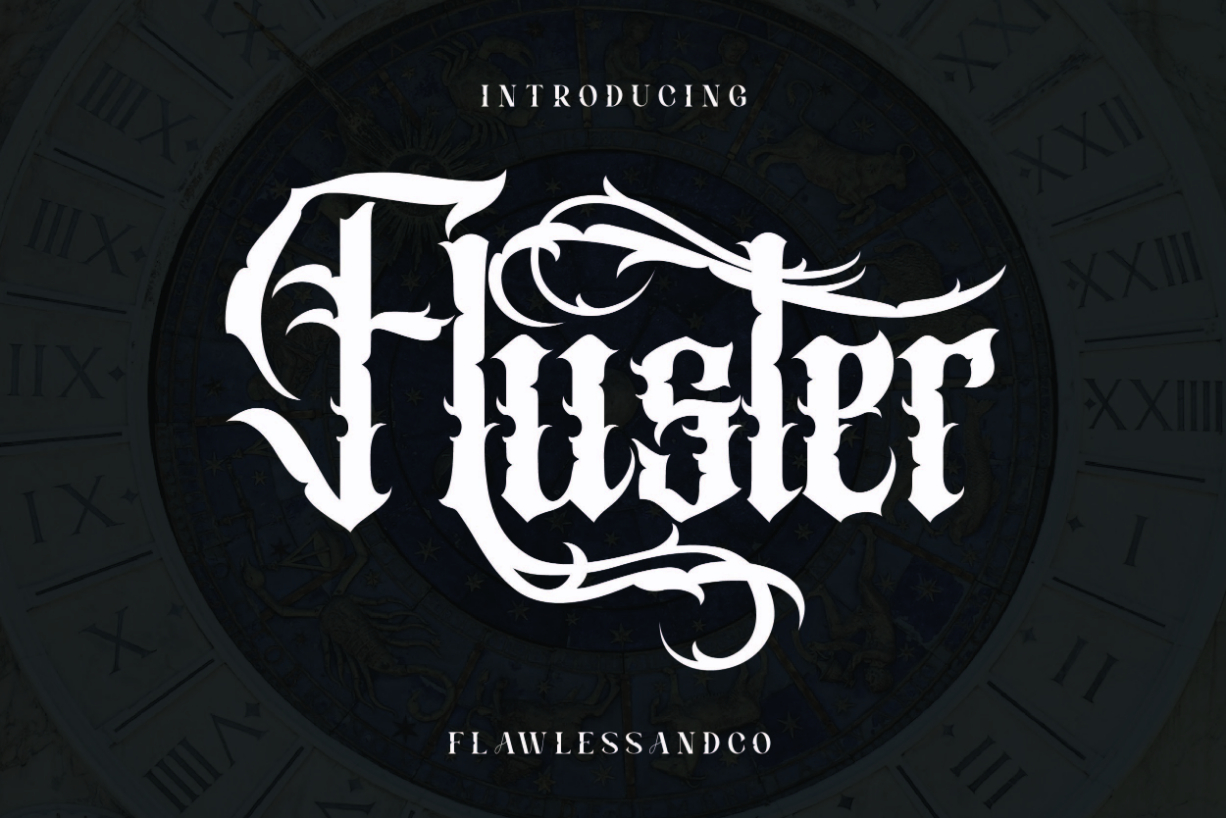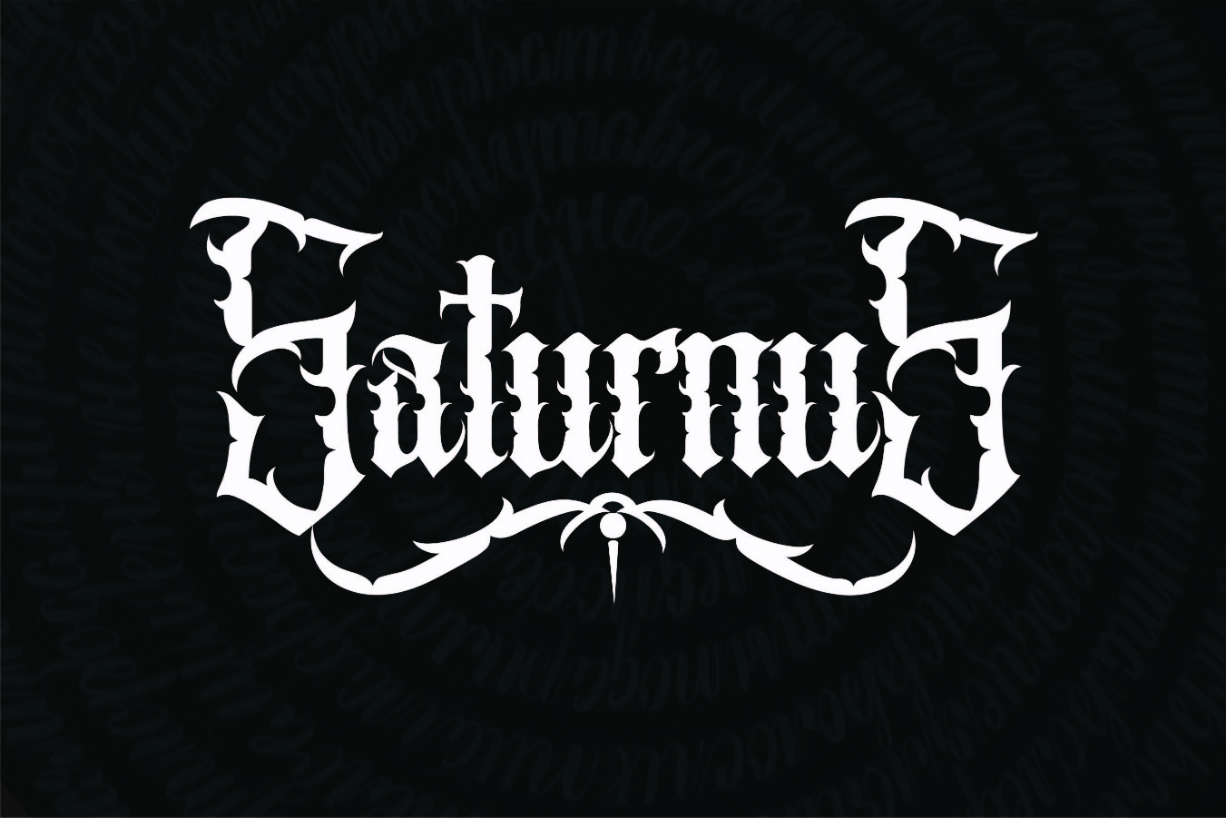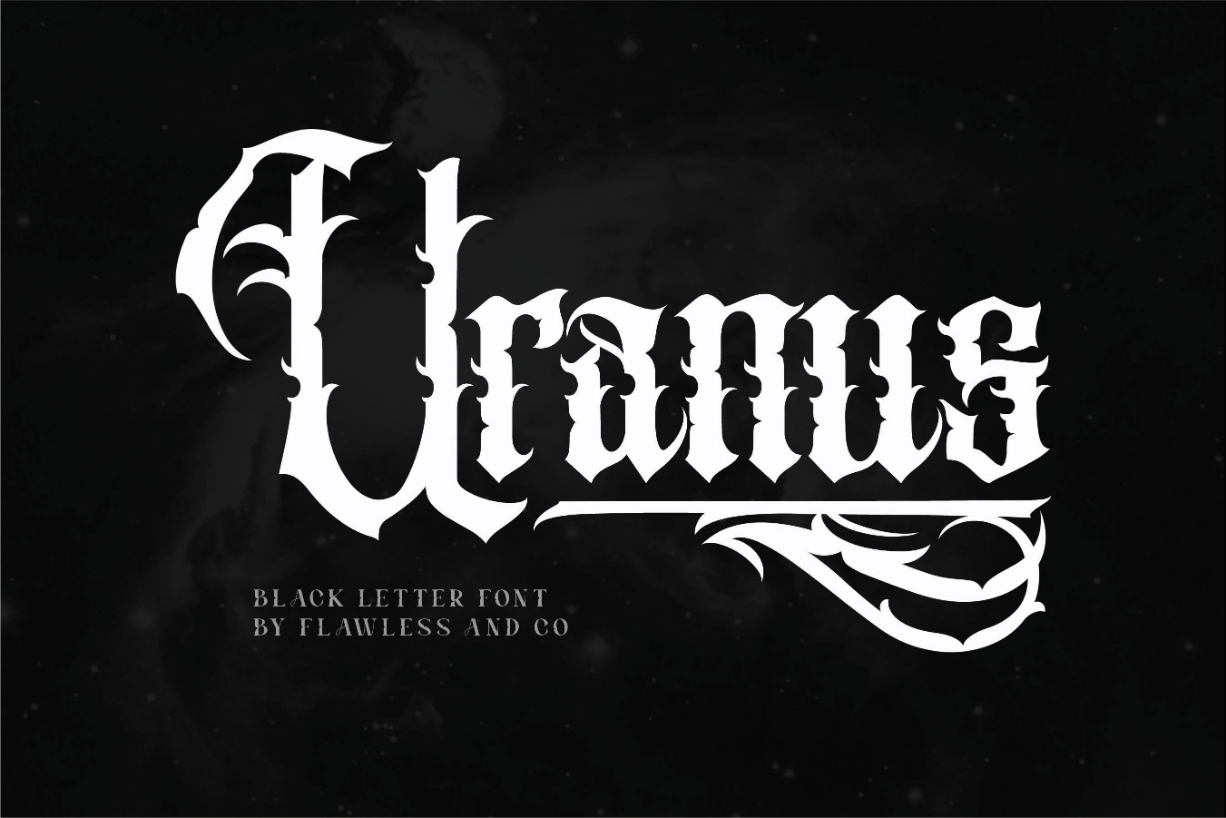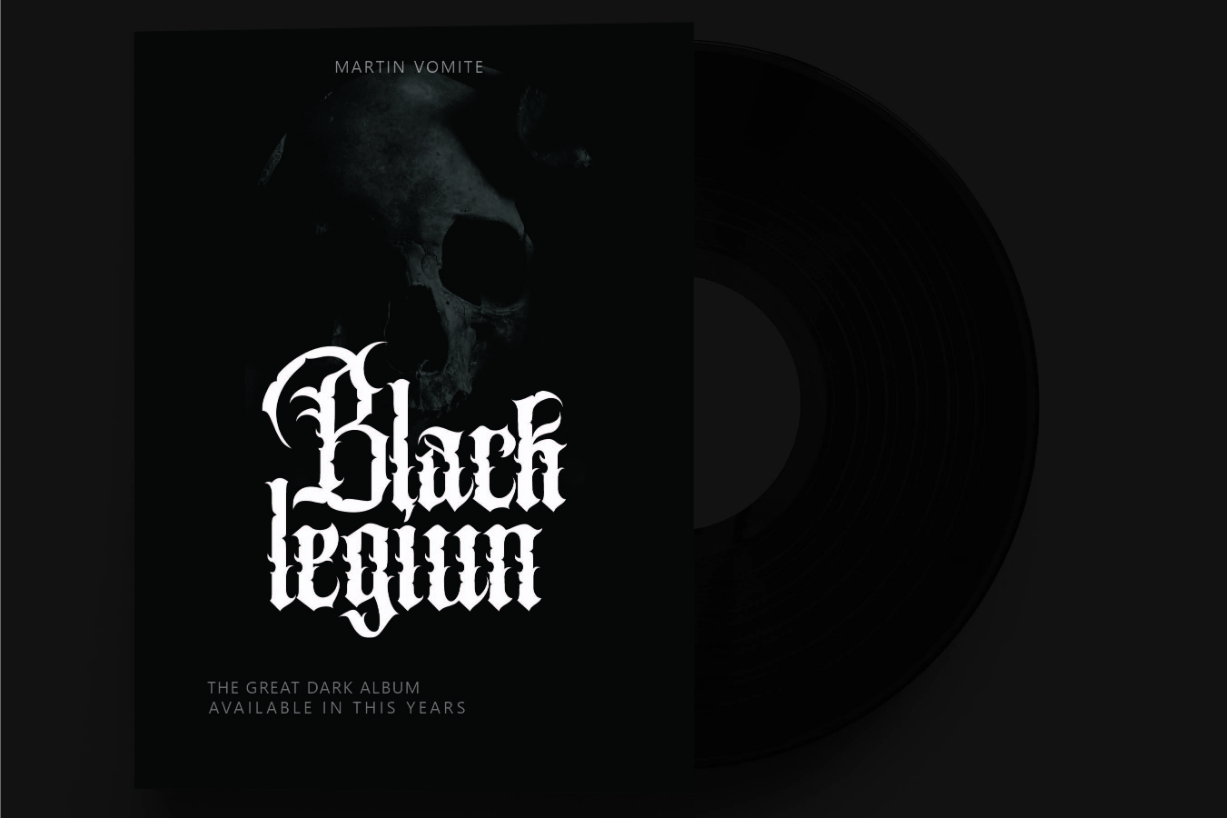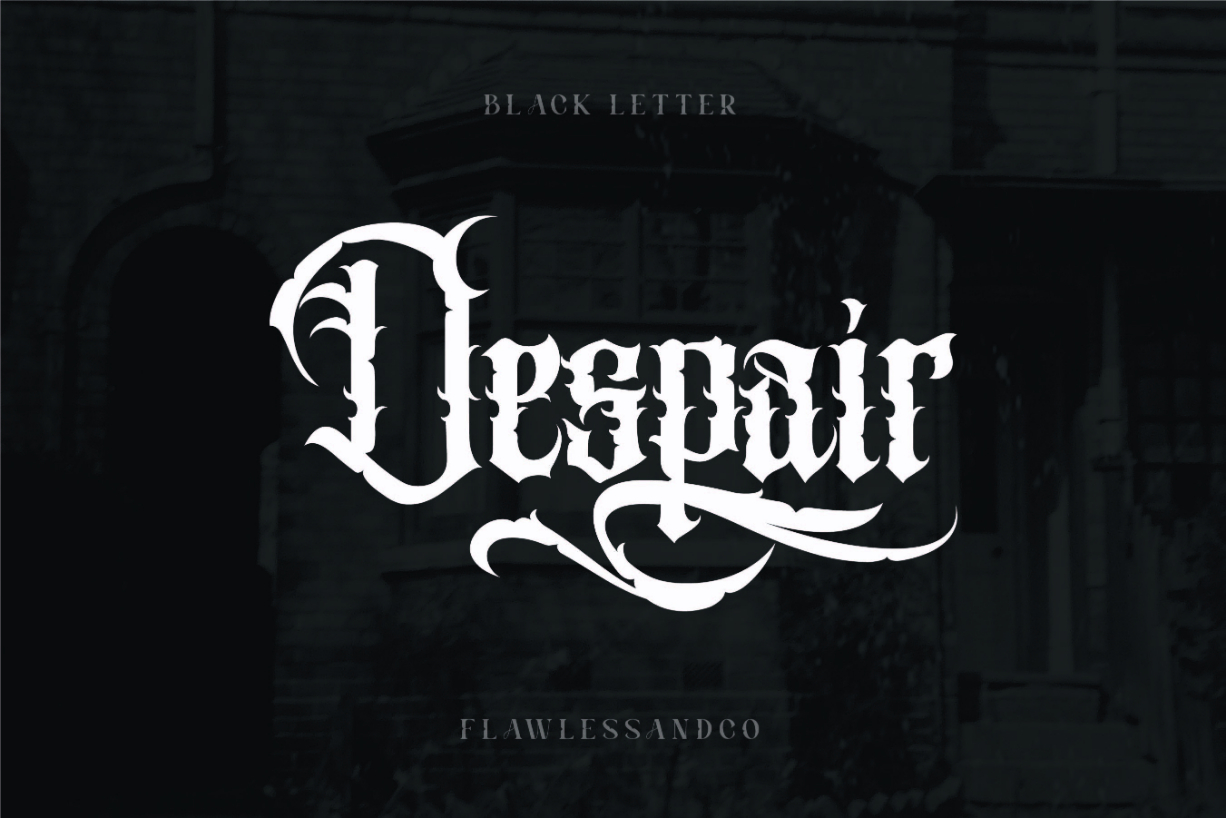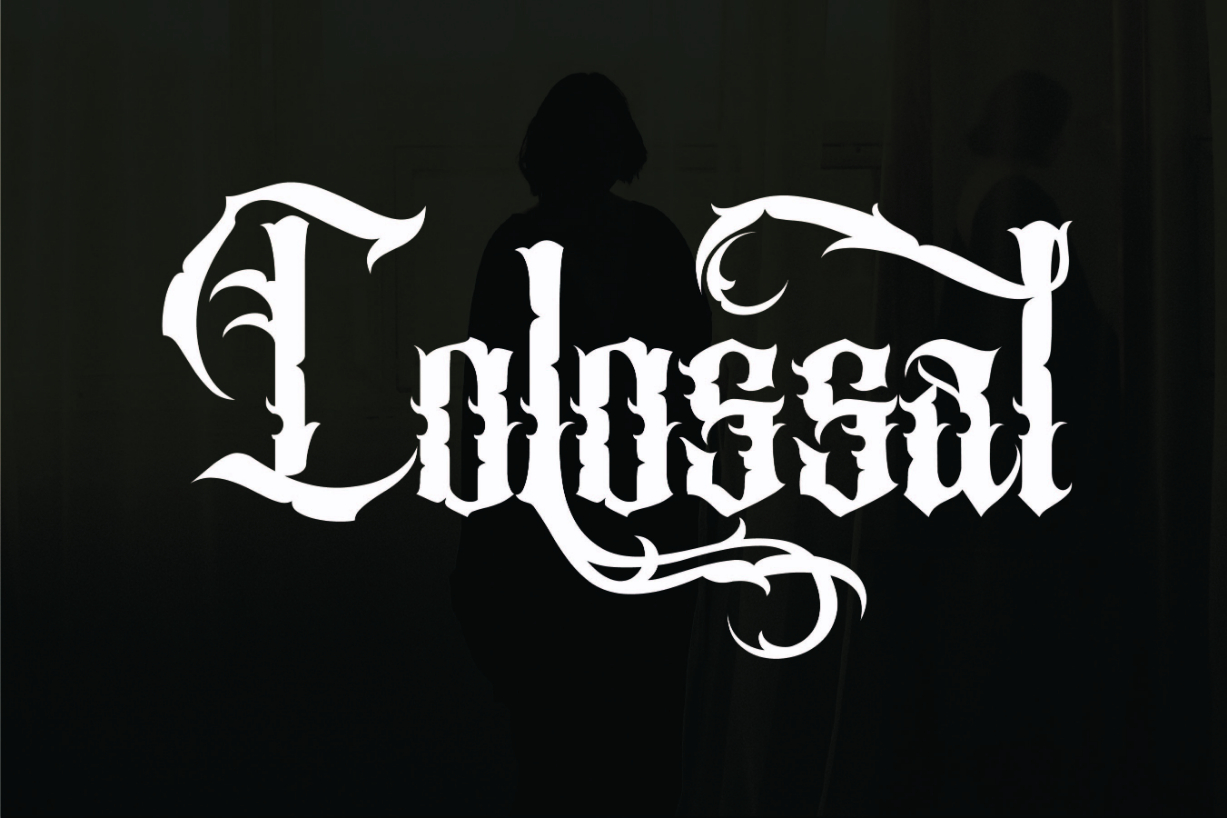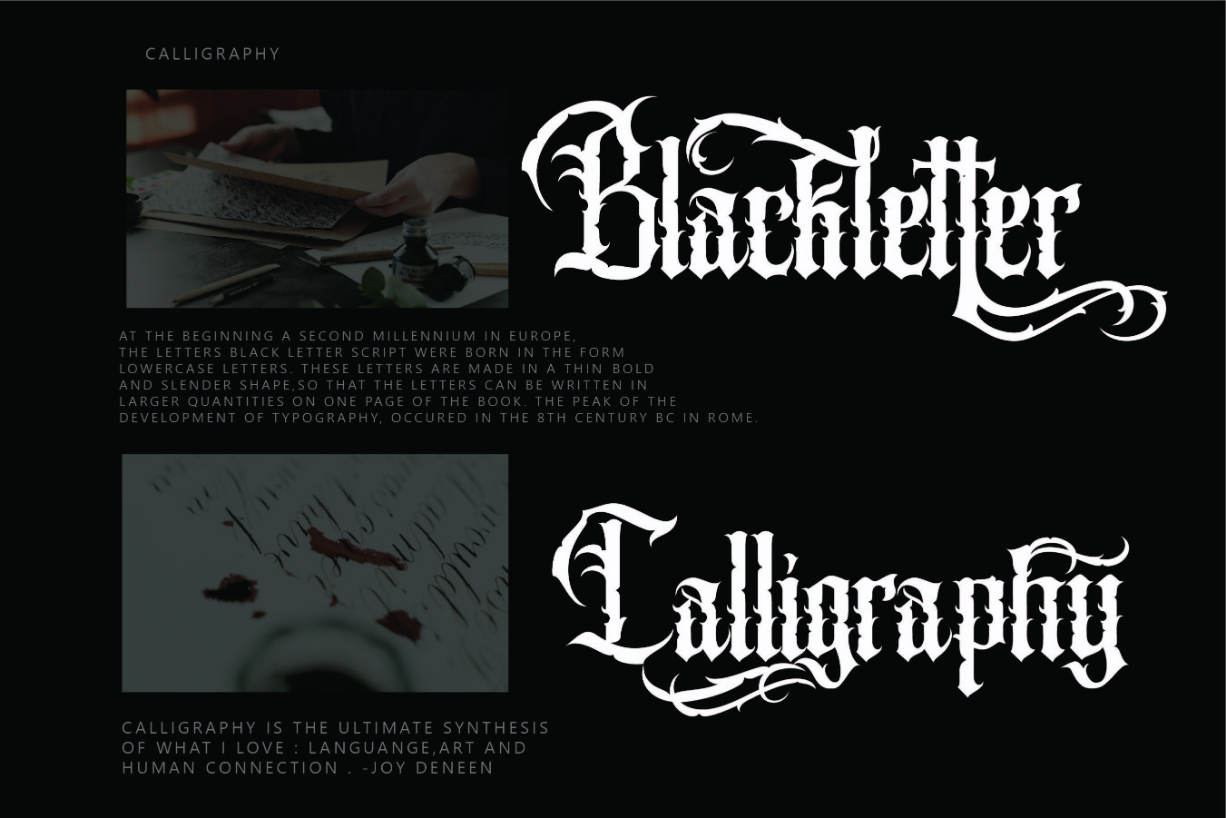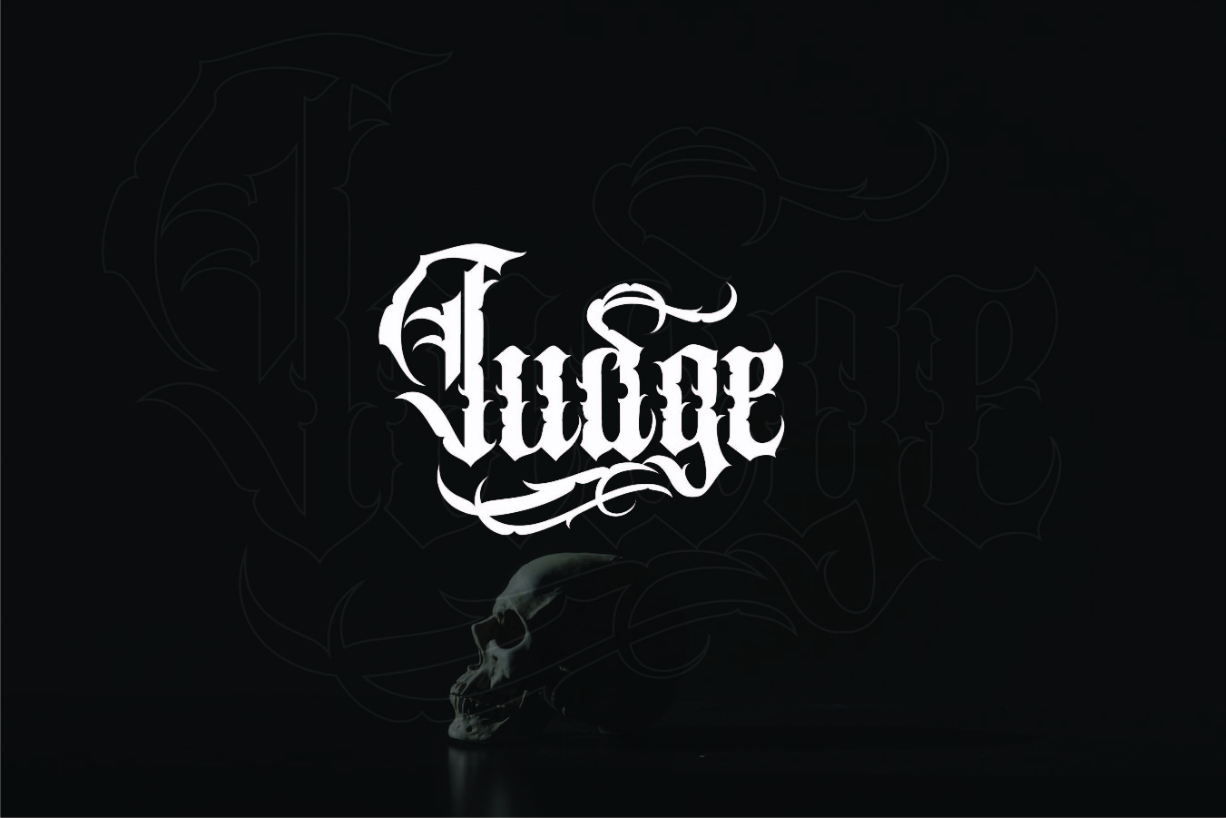
Fluster Font
About Fluster Font
Fluster is a beautiful Blackletter font. You can use it for poster design, branding materials, t-shirts, business cards, logos, photography, quotes, and more. Try out some alternate characters for another visual result!